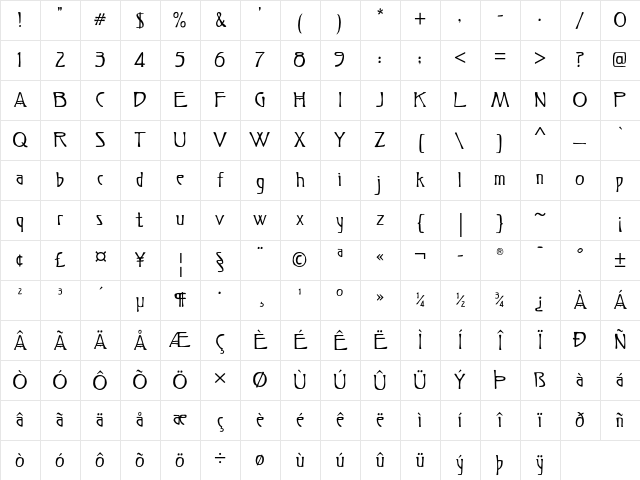
Greengate ITC Std Regular
Designer: Richard Every
Design Context for Greengate ITC Std
Greengate ITC Std is a composed and adaptable typeface that performs quietly and consistently across a wide range of design contexts.
Pro Tip: Use Greengate ITC Std in both headline and body roles to test its range before committing to a single application.